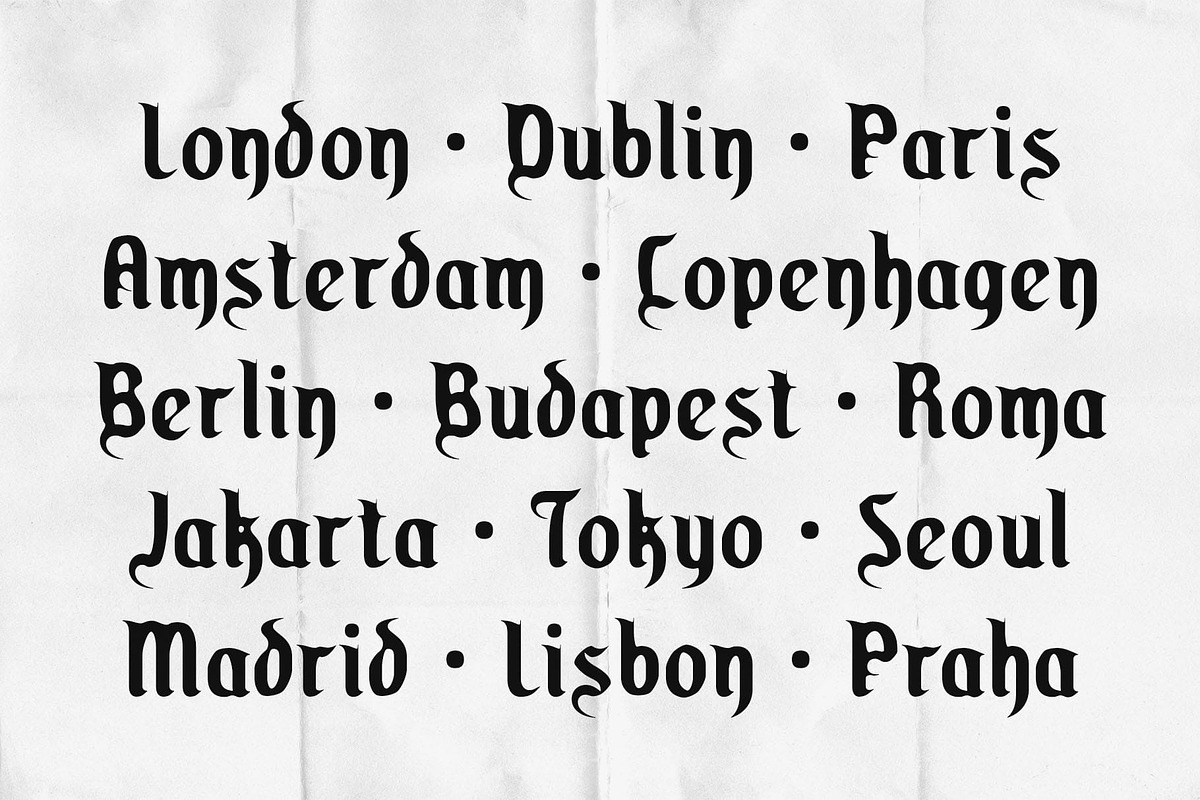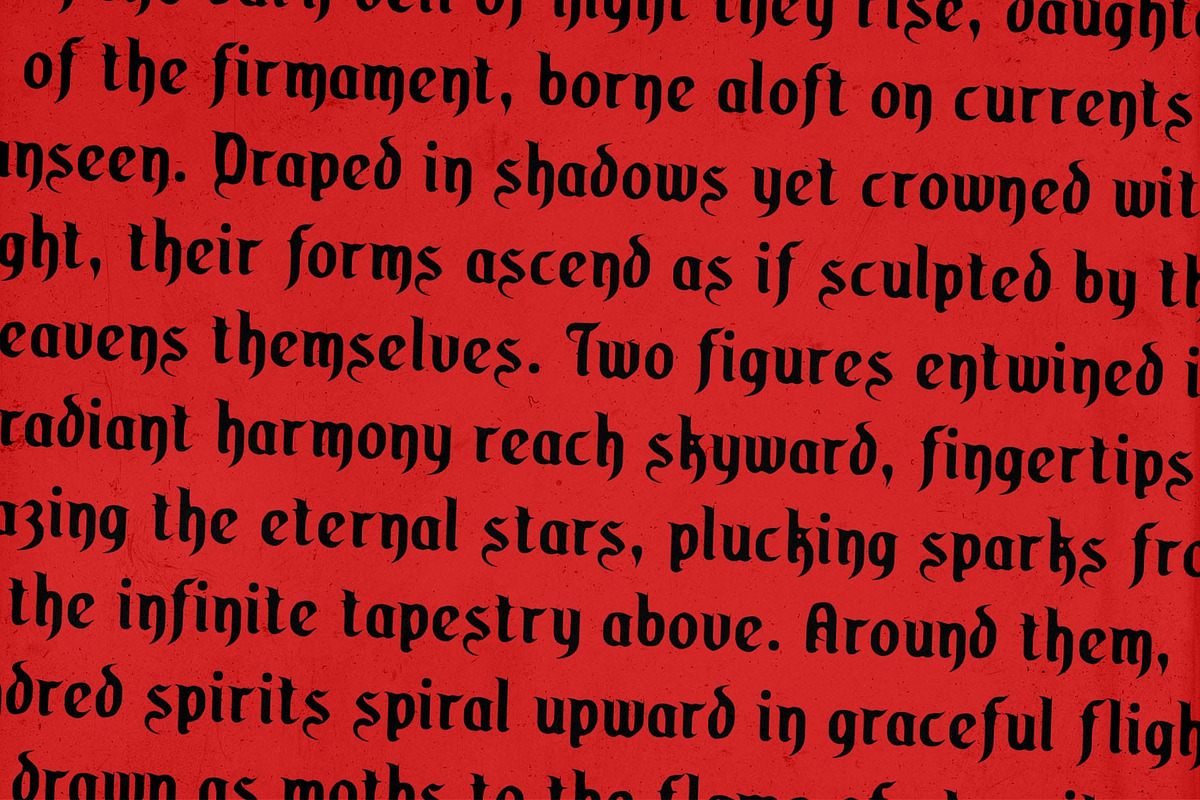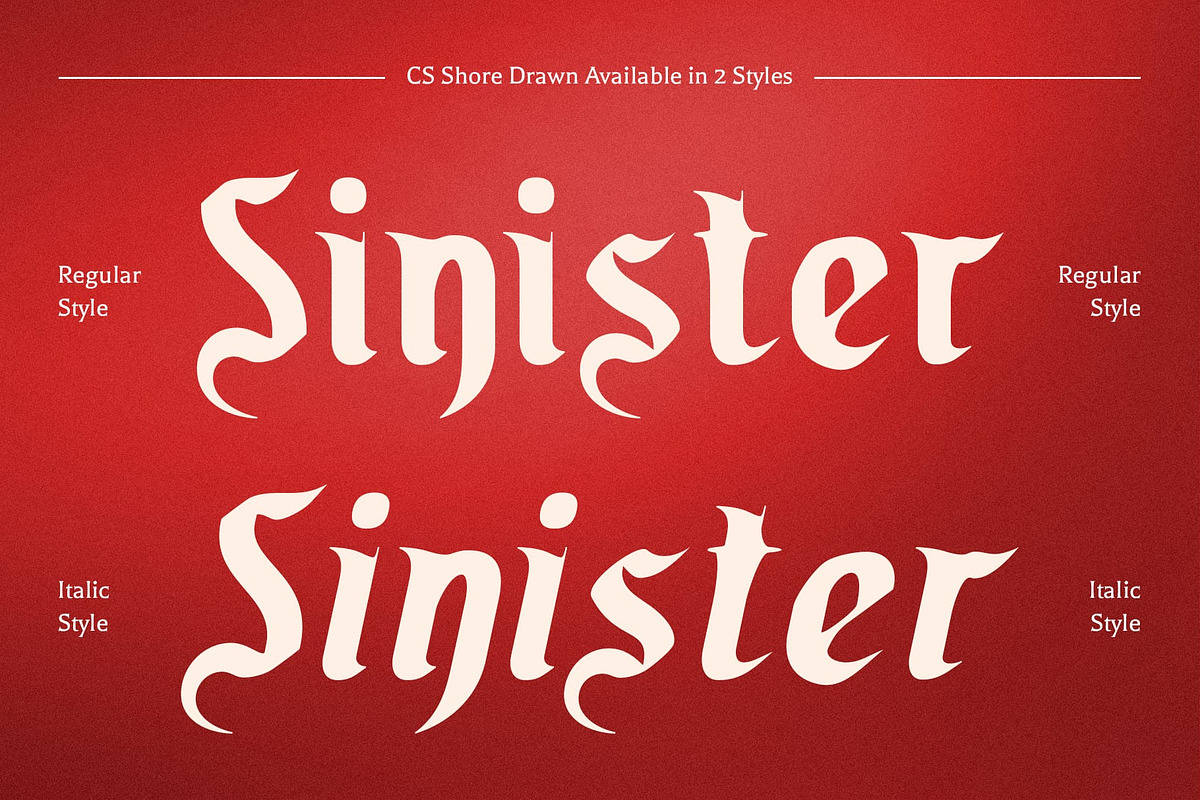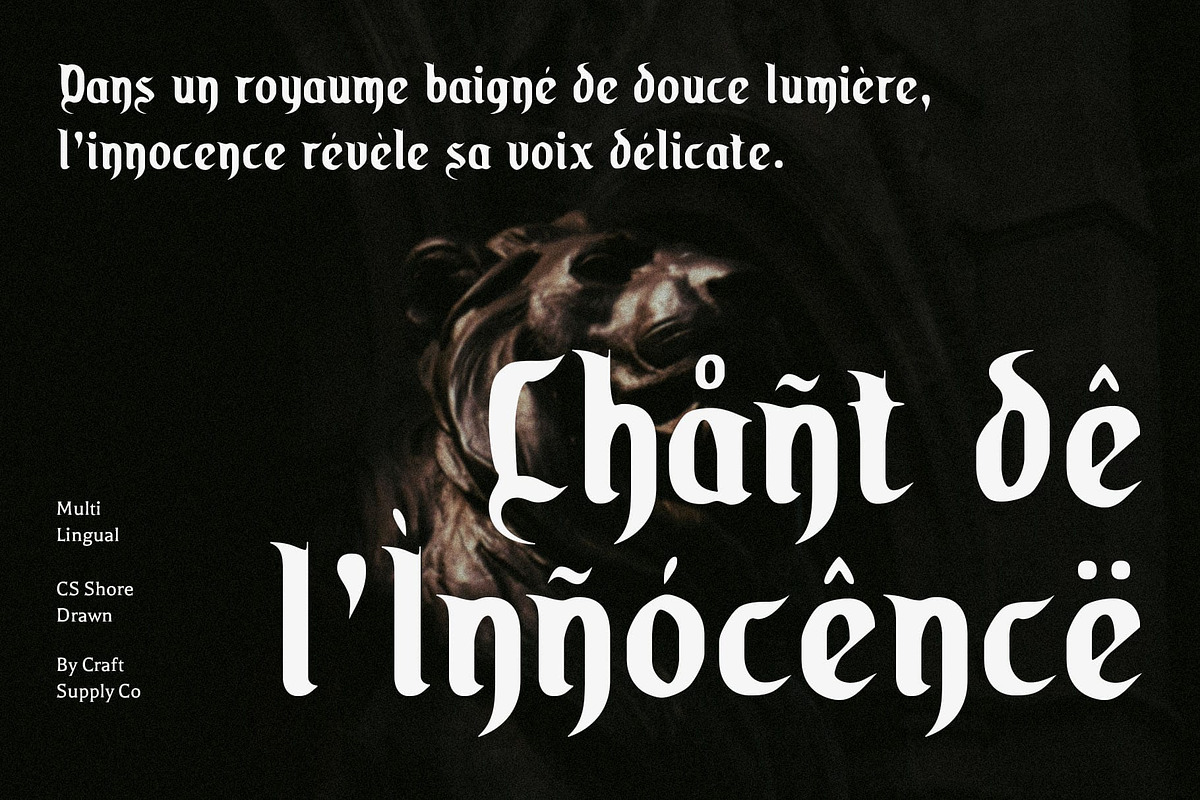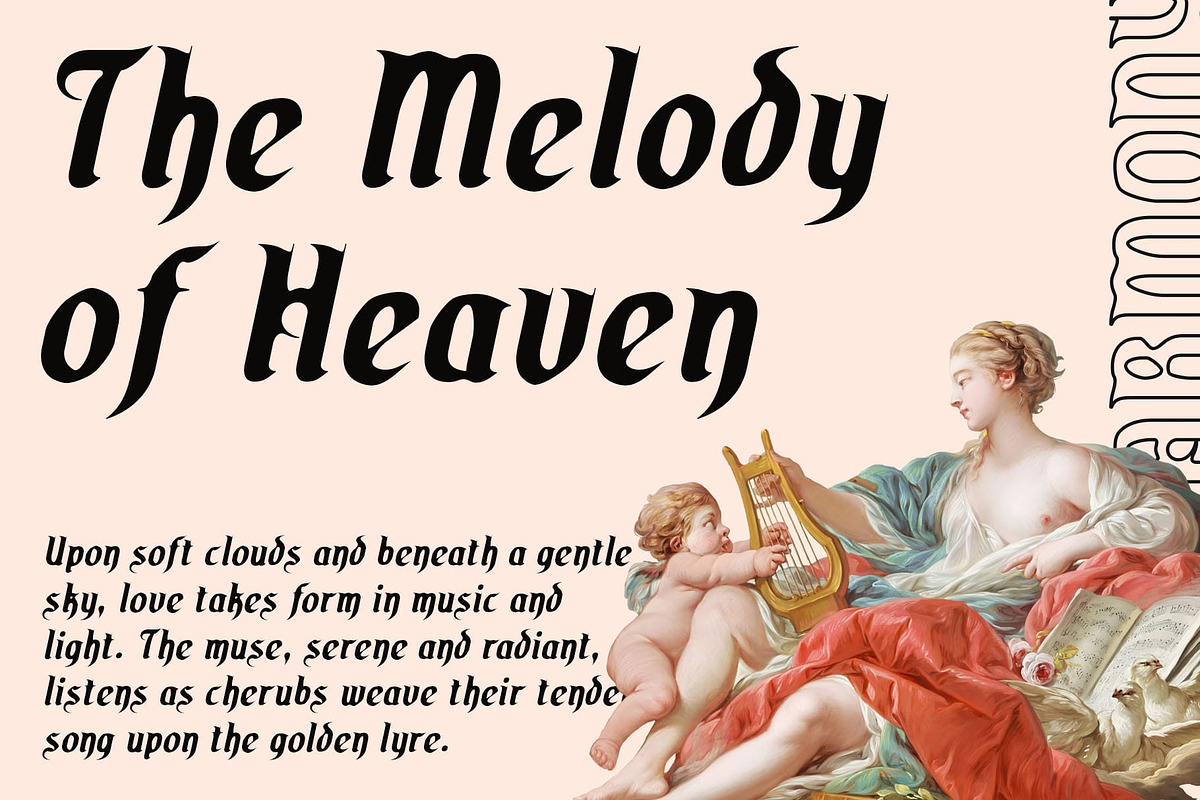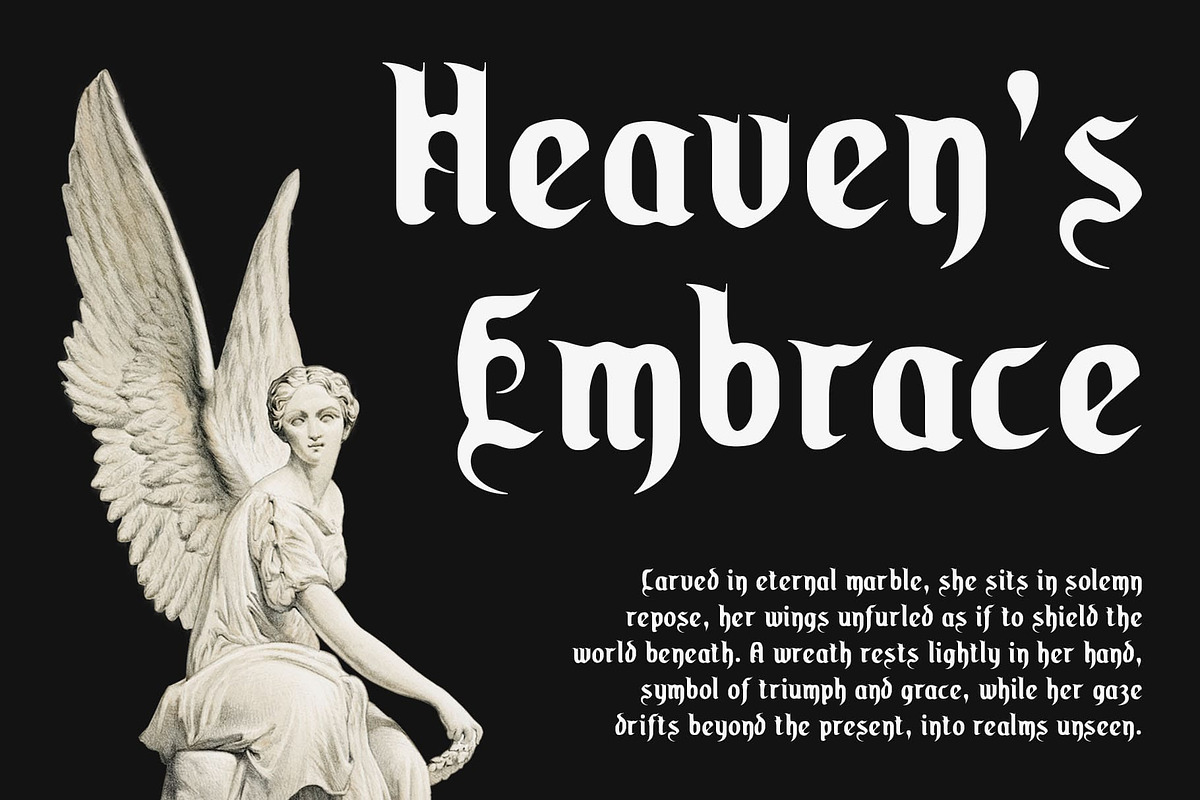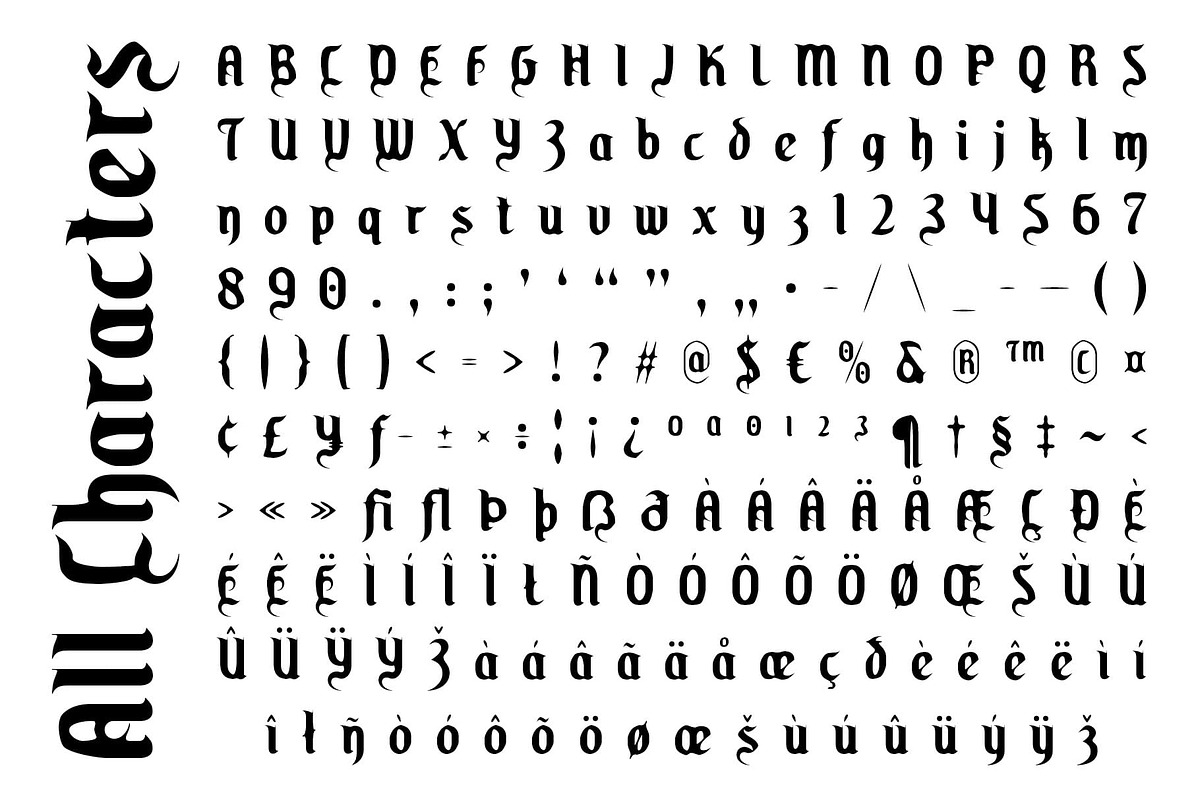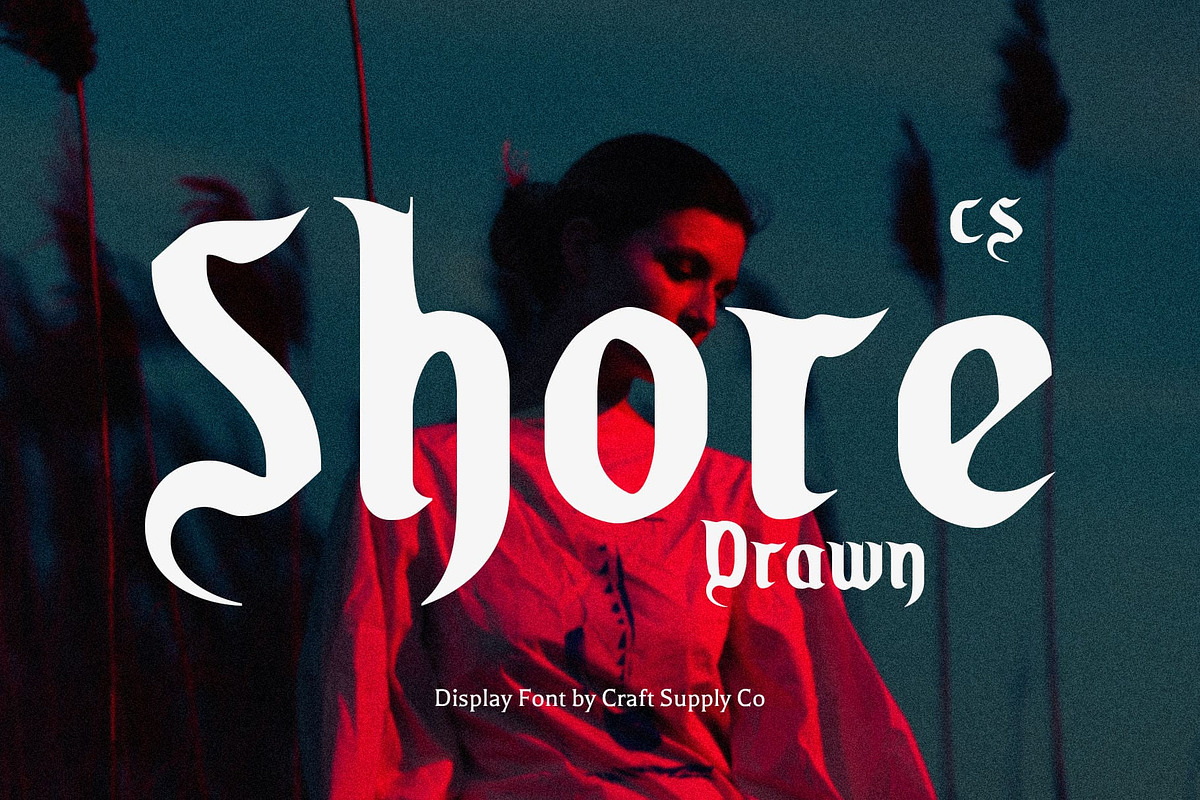
CS Shore Drawn
CS Shore Drawn – Gothic Display Font with Handcrafted Boldness and Artistic Drawn Texture
Bold Gothic Character CS Shore Drawn is a Gothic display font defined by sharp, commanding letterforms. Its bold shapes convey strength and authority, making it an impactful choice for projects that demand attention and presence.
Hand-Drawn Artistic Texture What sets CS Shore Drawn apart is its drawn texture, which softens the rigidity of traditional Gothic fonts. The handcrafted detailing adds depth and artistry, transforming each character into something mysterious and expressive. It feels both historical and handmade, bridging the gap between heritage and creativity.
Aesthetic of Strength and Mystery This font thrives on dramatic contrasts structured Gothic boldness paired with imperfect, organic strokes. The result is a typeface that feels timeless yet experimental, ideal for evoking emotion and narrative through typography.
Perfect for Dramatic Branding CS Shore Drawn works beautifully in branding, posters, and book titles where drama and artistry are key. Its balance of Gothic tradition and handcrafted uniqueness ensures that designs carry both gravitas and individuality. For designers seeking strength wrapped in mystery, CS Shore Drawn delivers a bold statement.